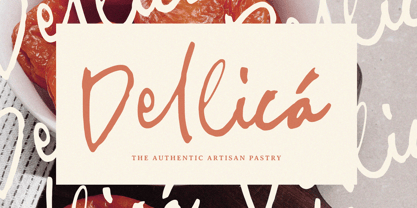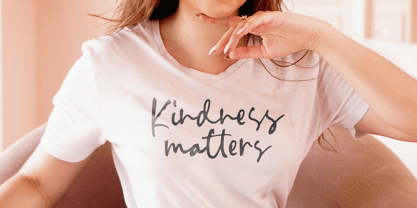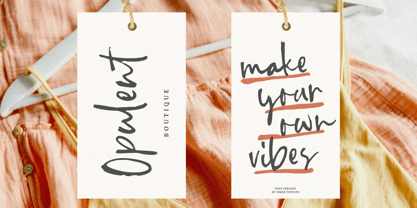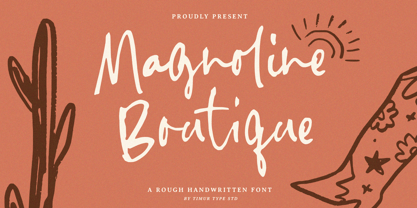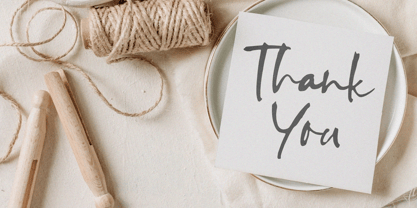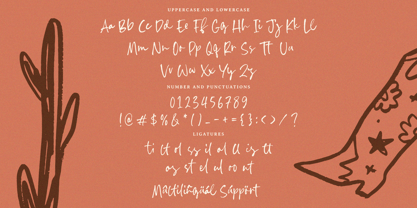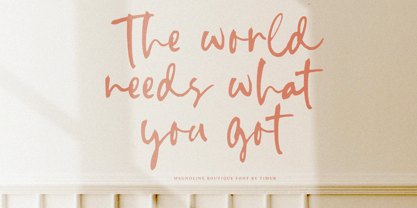
Magnoline Boutique
La familia tipográfica Magnoline Boutique fue diseñada por Wara Sigit Tri Pamungkas y publicada por Timurtype. Magnoline Boutique contiene 1 estilos. Más información sobre esta familia
Introduced by Timurtype Studio!
Magnoline Boutique is a Rough Handwritten Font
This font is a charming handwritten font with a raw and organic feel, perfect for adding a touch to your designs. It features an uneven, rough texture that mimics the imperfections of authentic hand-drawn lettering, making it ideal for projects that demand a natural and artisanal aesthetic.
Magnoline Boutique Font also supports multilingualism